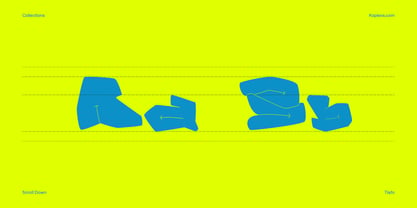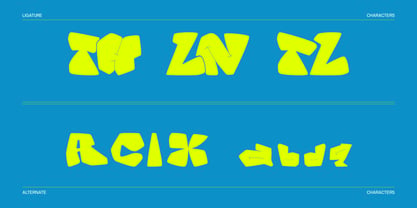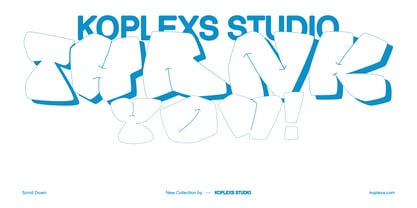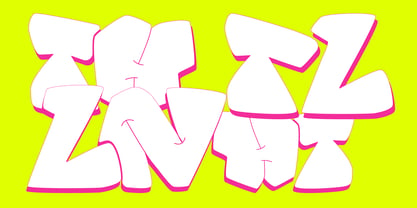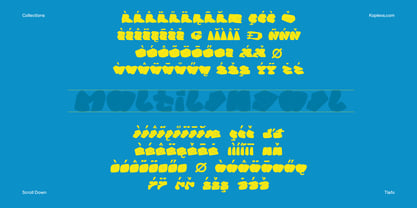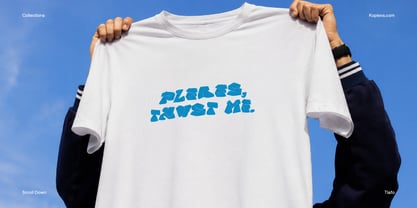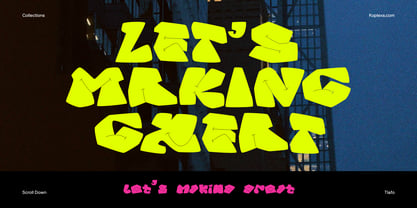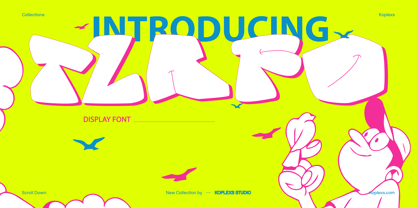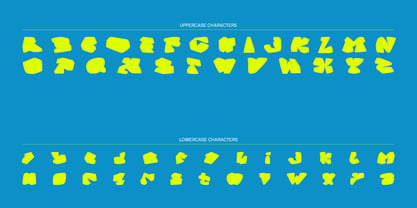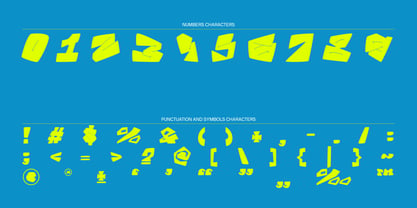
Tlafo
Tlafo Font is a distinctive display typeface with a confident personality and a strong visual presence. Created for designs that need more character, it turns simple words into an expressive part of the composition.
Its bold and recognizable appearance makes Tlafo Font especially effective in large sizes, where every letter has room to make an impression. The design works naturally across contemporary branding while remaining flexible enough for playful and artistic concepts.
Tlafo Font is a strong choice for:
• Logos and visual identities
• Posters and advertising
• Product packaging
• Headlines and titles
• Editorial layouts
• Apparel and merchandise
• Labels and signage
• Social media graphics
• Music and entertainment artwork
• Website and campaign graphics
Tlafo Font is particularly useful when typography needs to become a key element of the design. Pair it with a clean and understated supporting typeface to create contrast, or let it stand alone for a more expressive composition.
From memorable brand identities to attention-grabbing posters and packaging, Tlafo Font gives designers a versatile way to add personality, energy, and a distinctive typographic voice to their work.